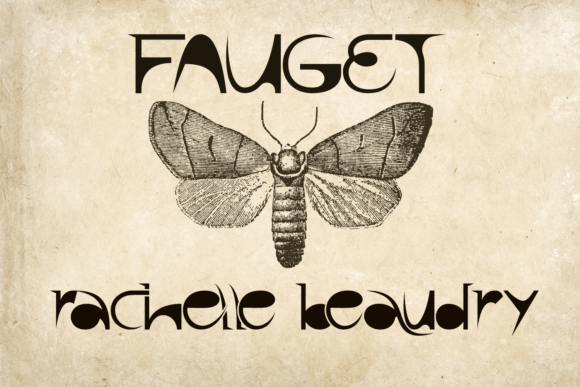
Reminder According Font: A Cool and Unique Display Font for Creative Projects
Are you looking for a font that can add a touch of uniqueness and creativity to your projects? Look no further than Reminder According Font. This cool and unique display font is perfect for designers, artists, and anyone looking to make their work stand out. In this article, we’ll explore the features and benefits of Reminder According Font, and how you can use it to take your creative projects to the next level.
What is Reminder According Font?
Reminder According Font is a display font designed to grab attention and make a statement. Its unique and cool design makes it perfect for use in a variety of creative projects, from posters and flyers to logos and branding materials. The font is easy to read and understand, making it a great choice for use in both digital and print materials.
Key Features of Reminder According Font
- Unique and Cool Design: Reminder According Font has a unique and cool design that sets it apart from other fonts. Its distinctive style makes it perfect for use in creative projects where you want to make a statement.
- Easy to Read: Despite its unique design, Reminder According Font is easy to read and understand. This makes it a great choice for use in both digital and print materials.
- High-Quality: Reminder According Font is a high-quality font that is designed to produce crisp and clear results. Whether you’re using it in a digital or print project, you can be sure that it will look great.
- Versatile: Reminder According Font is a versatile font that can be used in a variety of creative projects. Whether you’re working on a poster, flyer, logo, or branding materials, this font is a great choice.
Benefits of Using Reminder According Font
There are many benefits to using Reminder According Font in your creative projects. Some of the most significant advantages include:
- Adds Creativity and Uniqueness: Reminder According Font adds a touch of creativity and uniqueness to your projects. Its distinctive style makes it perfect for use in projects where you want to stand out.
- Improves Readability: Despite its unique design, Reminder According Font is easy to read and understand. This makes it a great choice for use in both digital and print materials.
- Enhances Professionalism: Using a high-quality font like Reminder According Font can enhance the professionalism of your projects. Whether you’re working on a personal project or a client project, this font can help you produce high-quality results.
- Great for Branding: Reminder According Font is a great choice for branding materials. Its unique and cool design makes it perfect for use in logos, business cards, and other branding materials.
Tips for Using Reminder According Font
Here are some tips for using Reminder According Font:
- Use it for Headings: Reminder According Font is perfect for use in headings. Its unique and cool design makes it a great choice for titles, subtitles, and other headings.
- Experiment with Colors: Reminder According Font looks great in a variety of colors. Experiment with different colors to find the one that works best for your project.
- Combine it with Other Fonts: Reminder According Font can be combined with other fonts to create a unique and interesting effect. Try pairing it with a sans-serif font for a contrasting look.
- Use it for Branding: Reminder According Font is a great choice for branding materials. Use it to create a consistent look across all your branding materials.
| Author | 177Studio |
Reminder According Font is a cool and unique display font that can add a touch of creativity and uniqueness to your projects. Its easy-to-read design and high-quality results make it a great choice for use in a variety of creative projects. Whether you’re working on a poster, flyer, logo, or branding materials, Reminder According Font is a great choice. So why not give it a try and see the results for yourself?
- What is Reminder According Font?: Reminder According Font is a cool and unique display font designed for use in creative projects.
- Can I use Reminder According Font for branding?: Yes, Reminder According Font is a great choice for branding materials. Its unique and cool design makes it perfect for use in logos, business cards, and other branding materials.